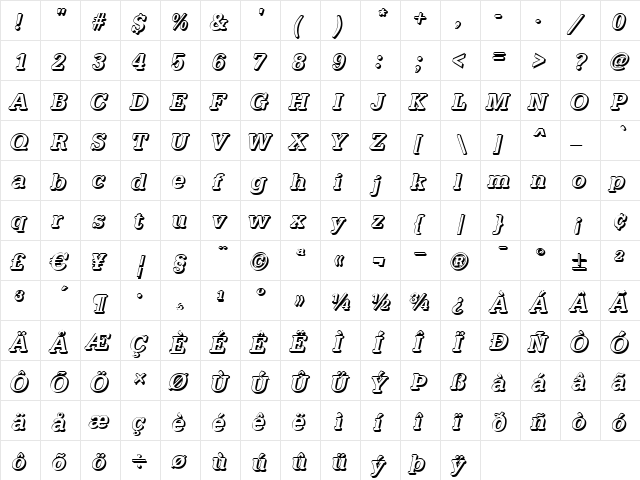
AstridBeckerShadowC-Medium Italic
Design Context for AstridBeckerShadowC-Medium Typeface
AstridBeckerShadowC-Medium is built around its visual character rather than neutral utility — its distinctive forms are designed to make an impression at display sizes. The dynamic lean of this cut emphasises speed and emphasis in any layout.
Font Pairing: Pair with a clean neutral sans-serif for body copy to let AstridBeckerShadowC-Medium's character lead without overwhelming the composition.
Pro Tip: Use AstridBeckerShadowC-Medium exclusively at display sizes — it was designed to be seen, not read at length. Let a neutral companion handle body copy.